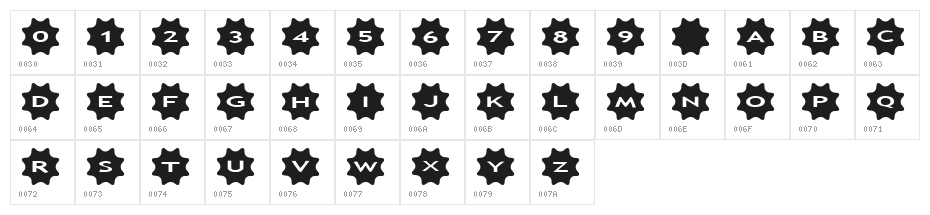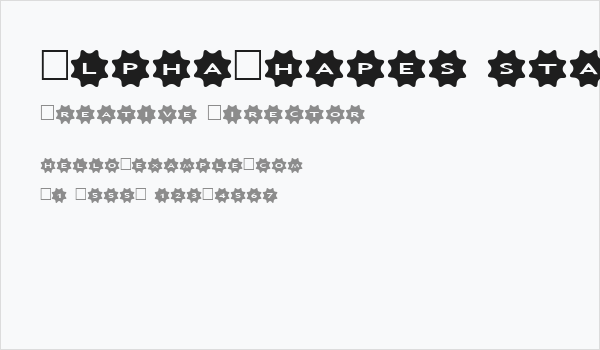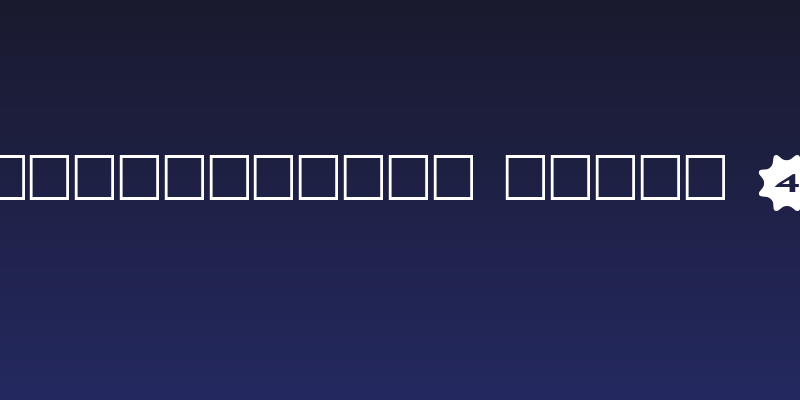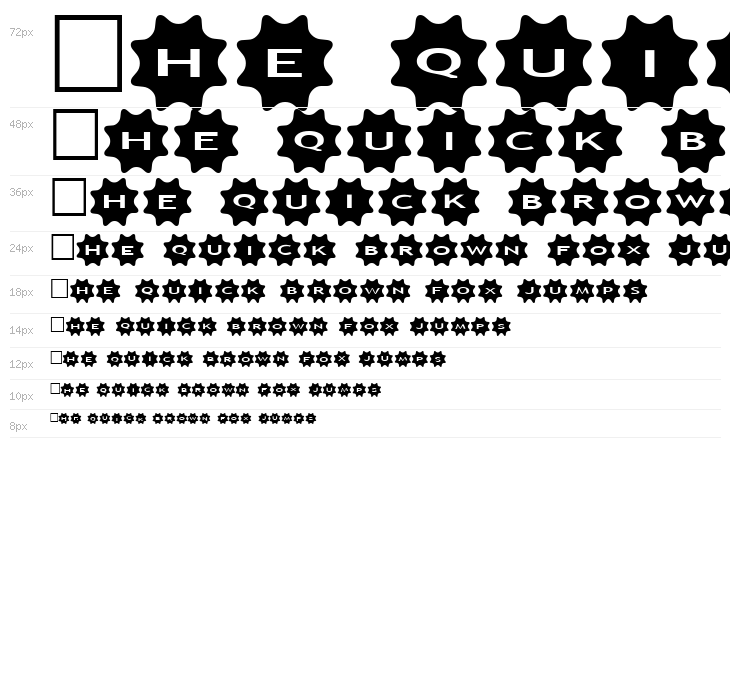
AlphaShapes stars 4 Font
AlphaShapes stars 4 Description
This font features a unique and playful design where each character is enclosed within a star-shaped outline. The bold, uppercase letters and numbers are centered within these star shapes, creating a striking and decorative appearance. The font is highly stylized, making it ideal for creative projects that require a fun and eye-catching look. The uniformity of the star shapes provides a consistent and cohesive aesthetic, while the boldness of the characters ensures readability. This font is perfect for projects that aim to stand out and make a statement.
Proposed ProjectsIdeal for children's book covers, party invitations, event posters, and playful branding.